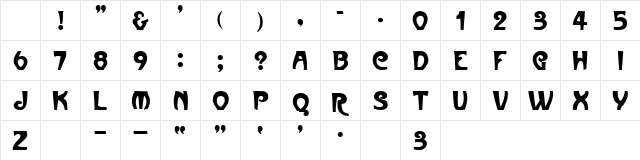
ParisMetro Metro:001.001 Free Font
ParisMetro Metro:001.001 Metro:001.001
Style: Metro:001.001
Design Context for ParisMetro Metro:001.001
ParisMetro Metro:001.001 is a composed and adaptable typeface that performs quietly and consistently across a wide range of design contexts.